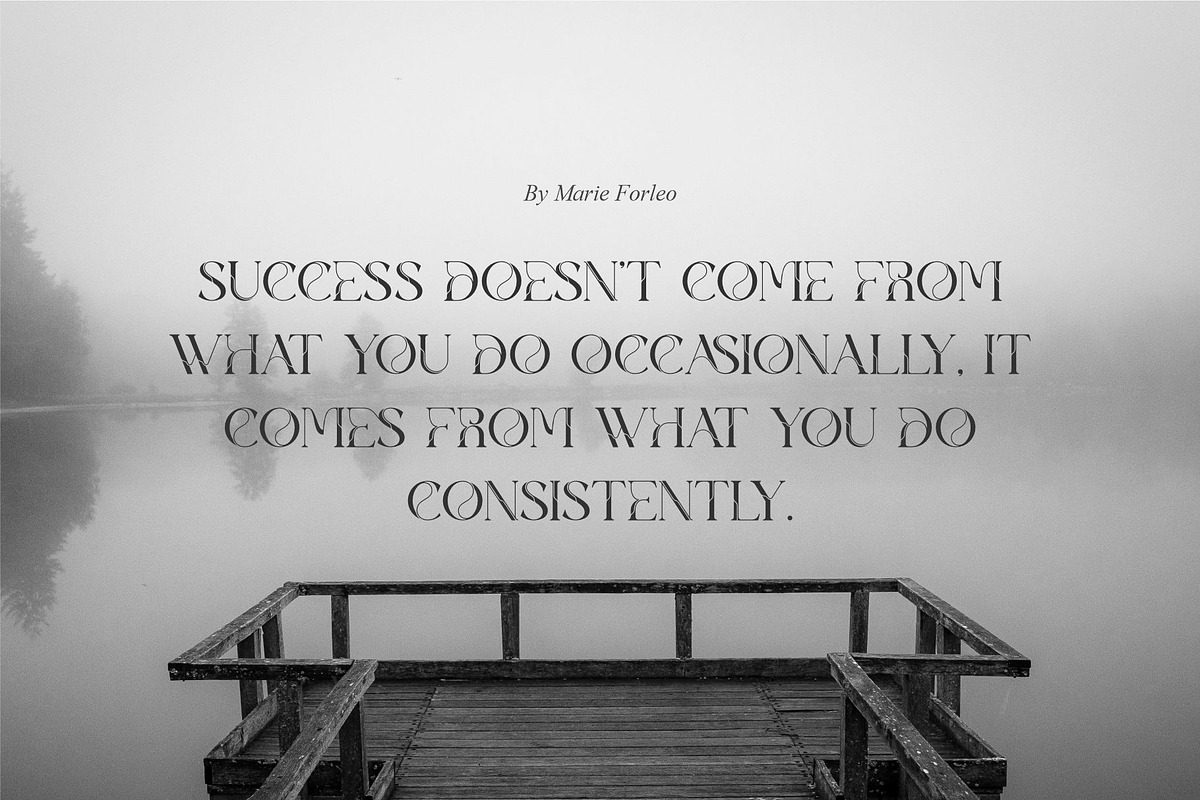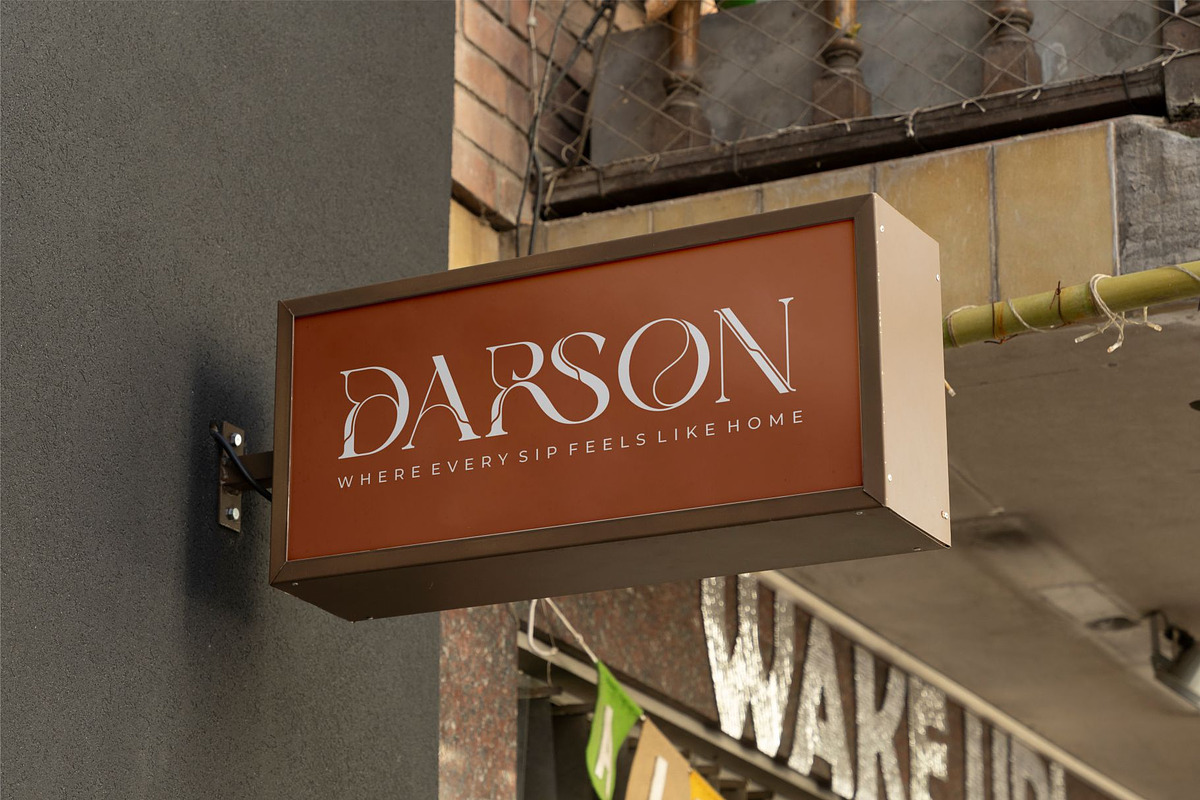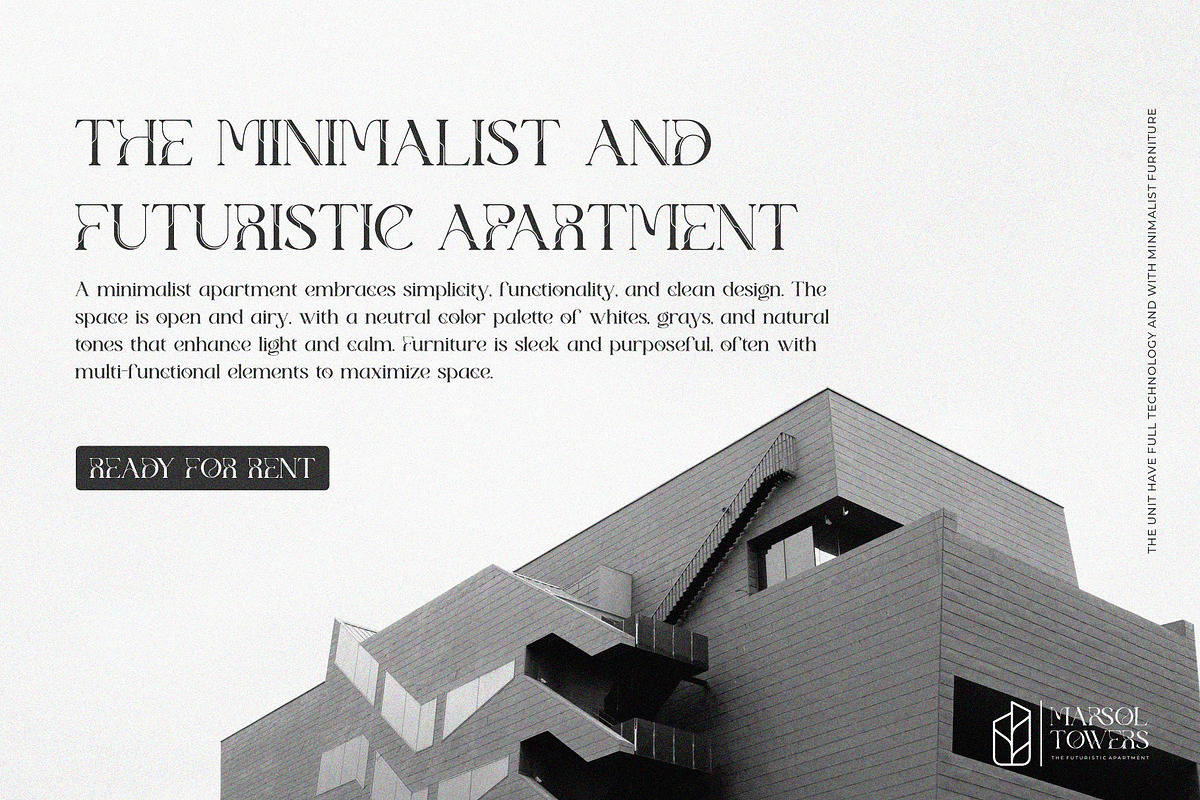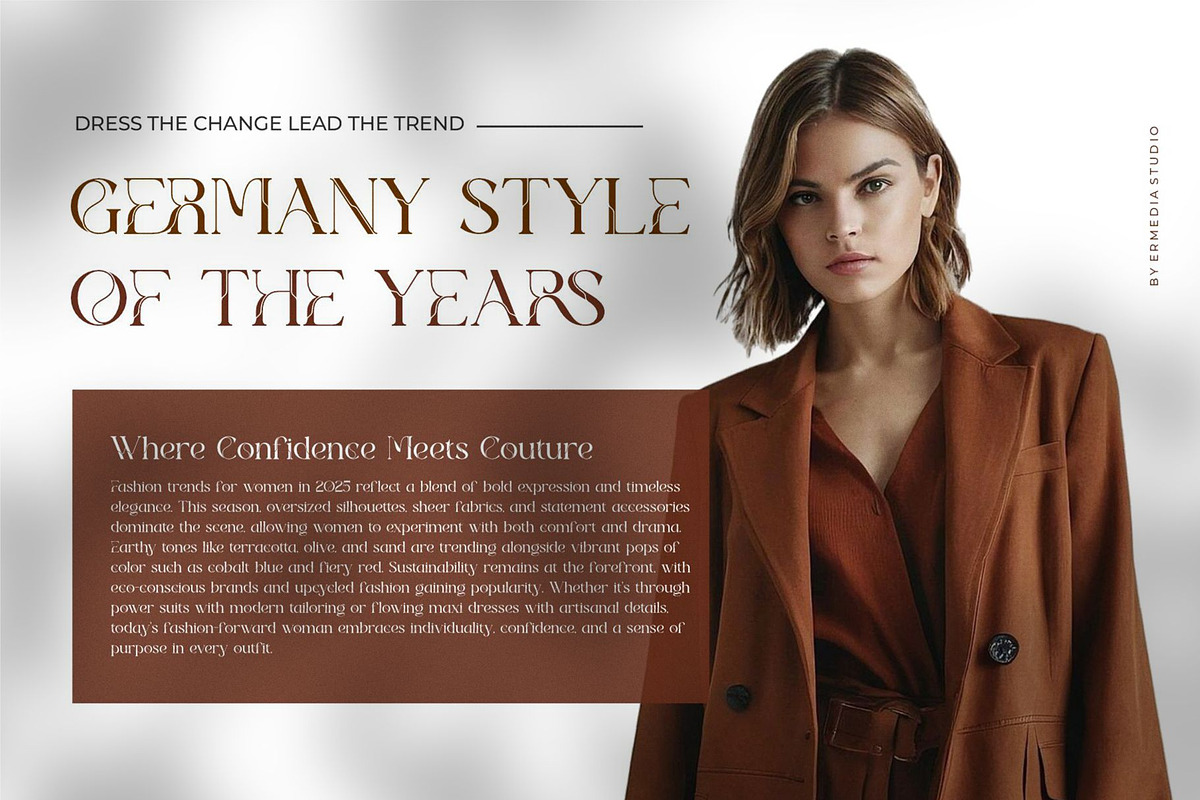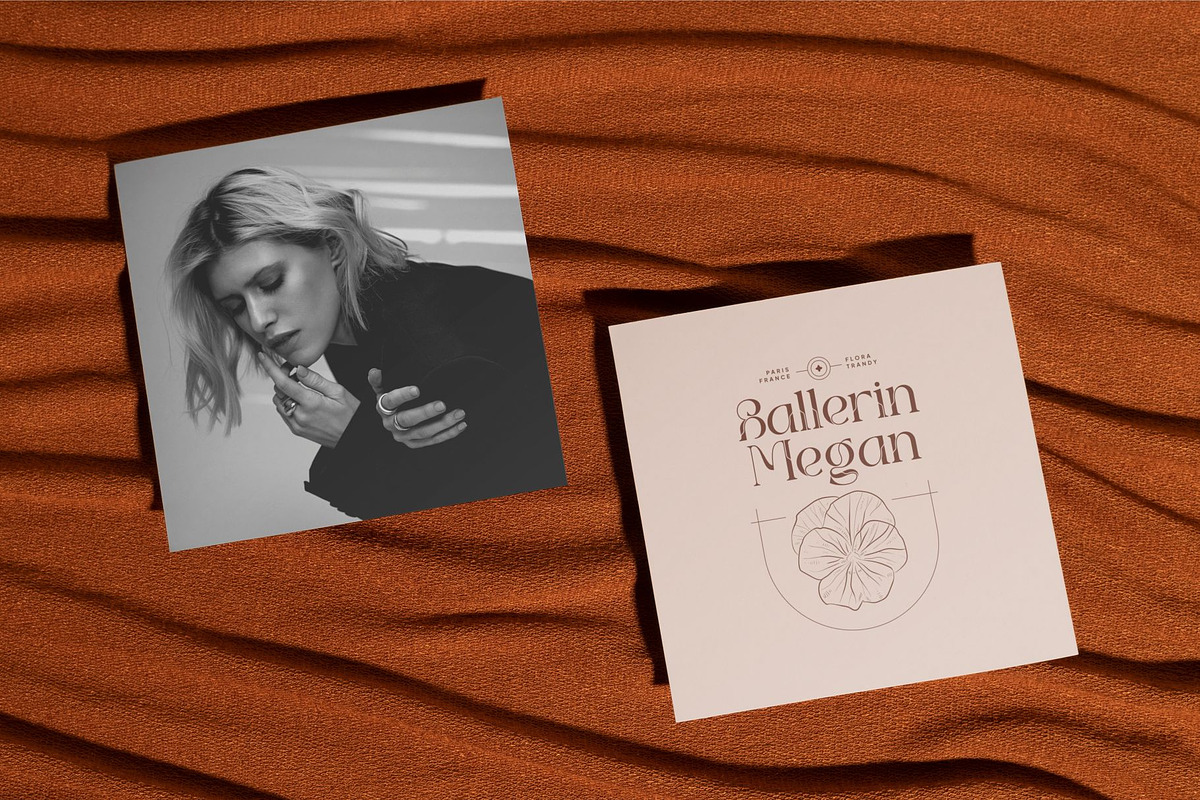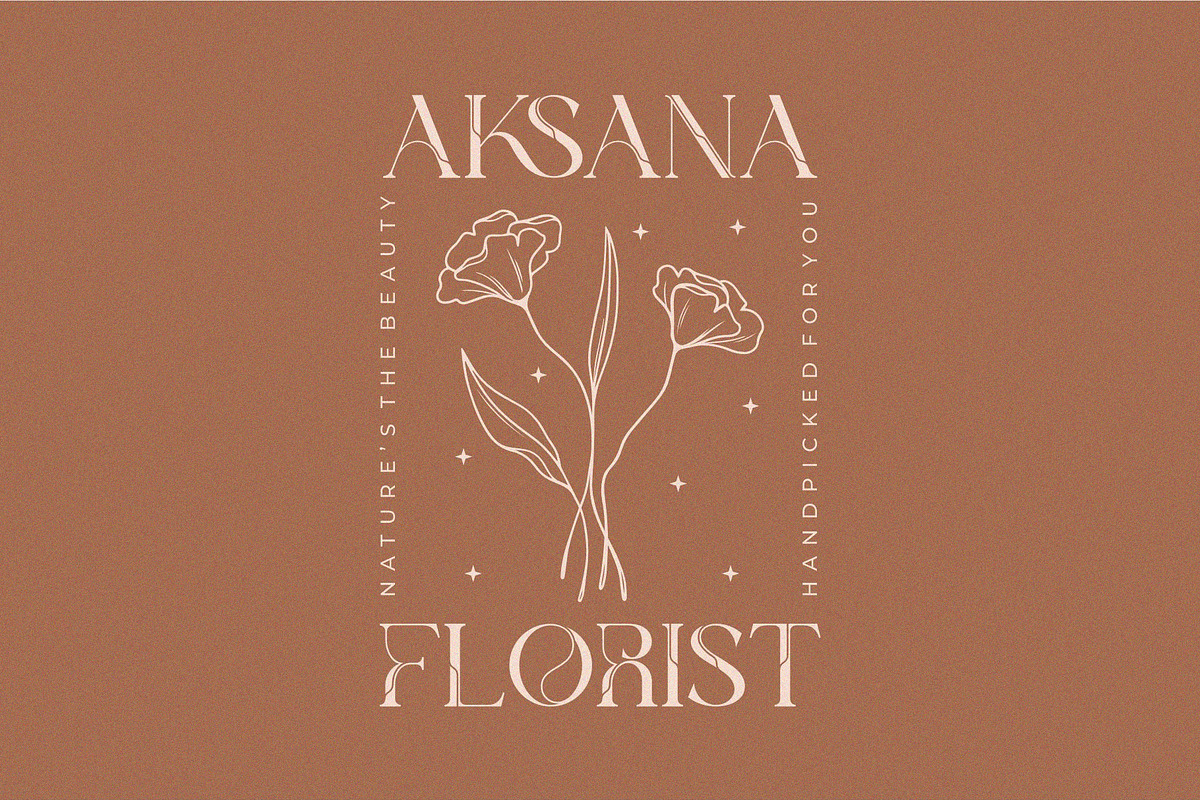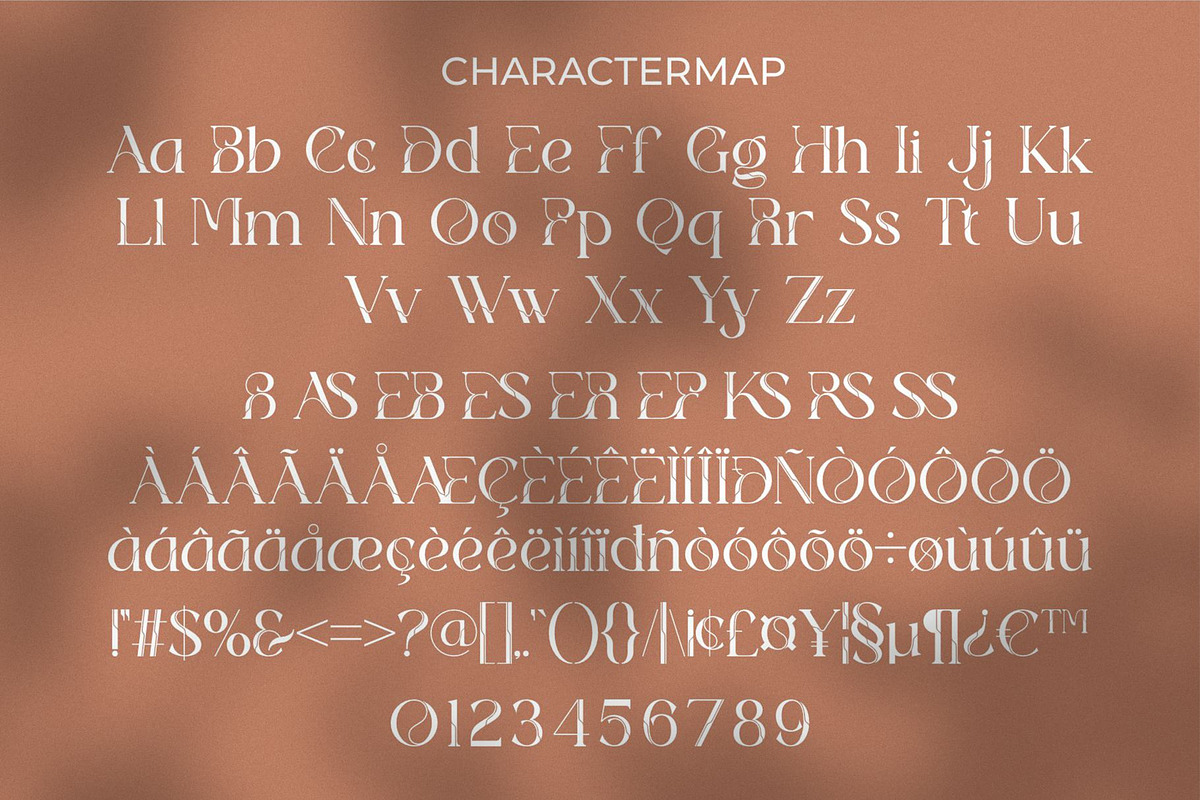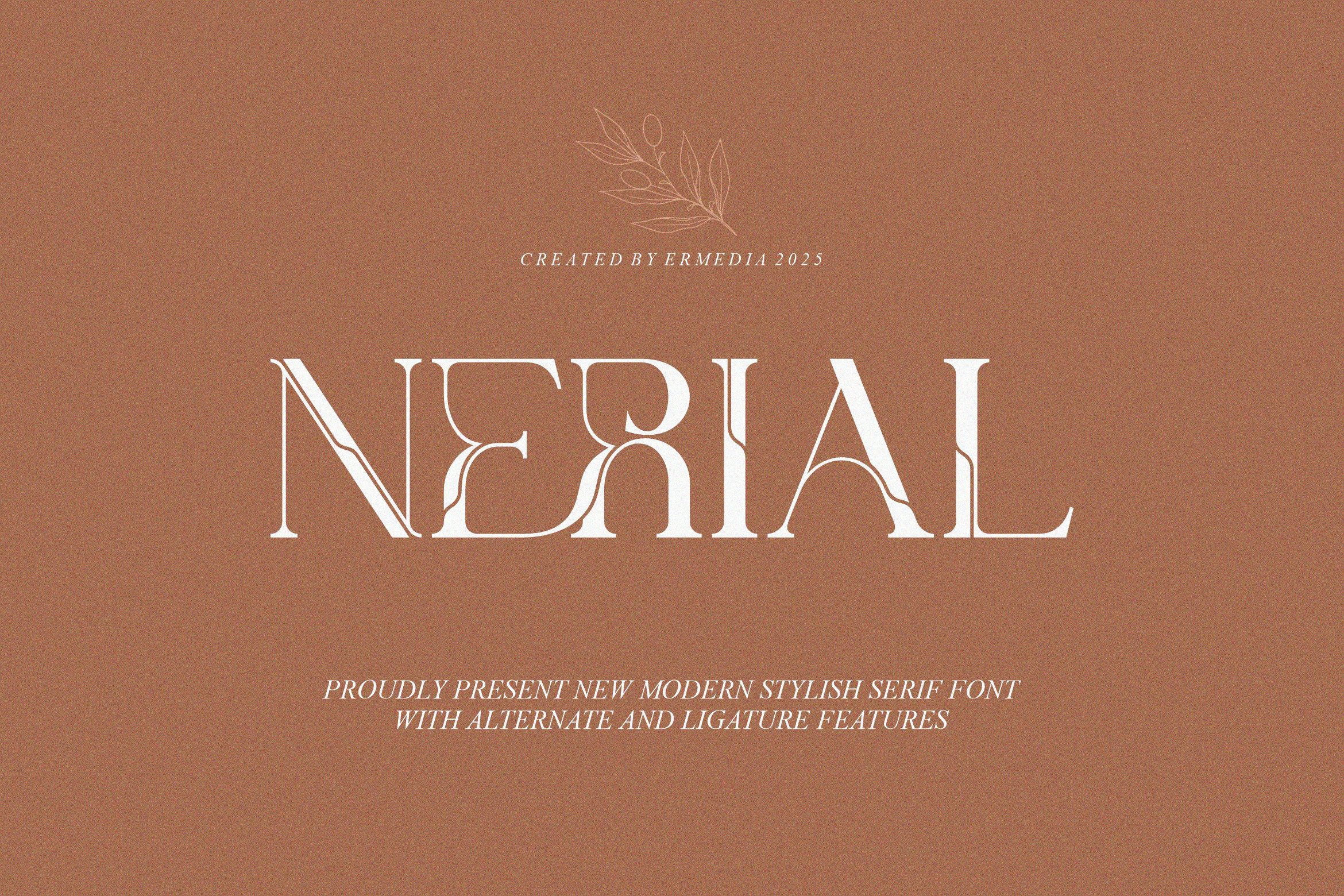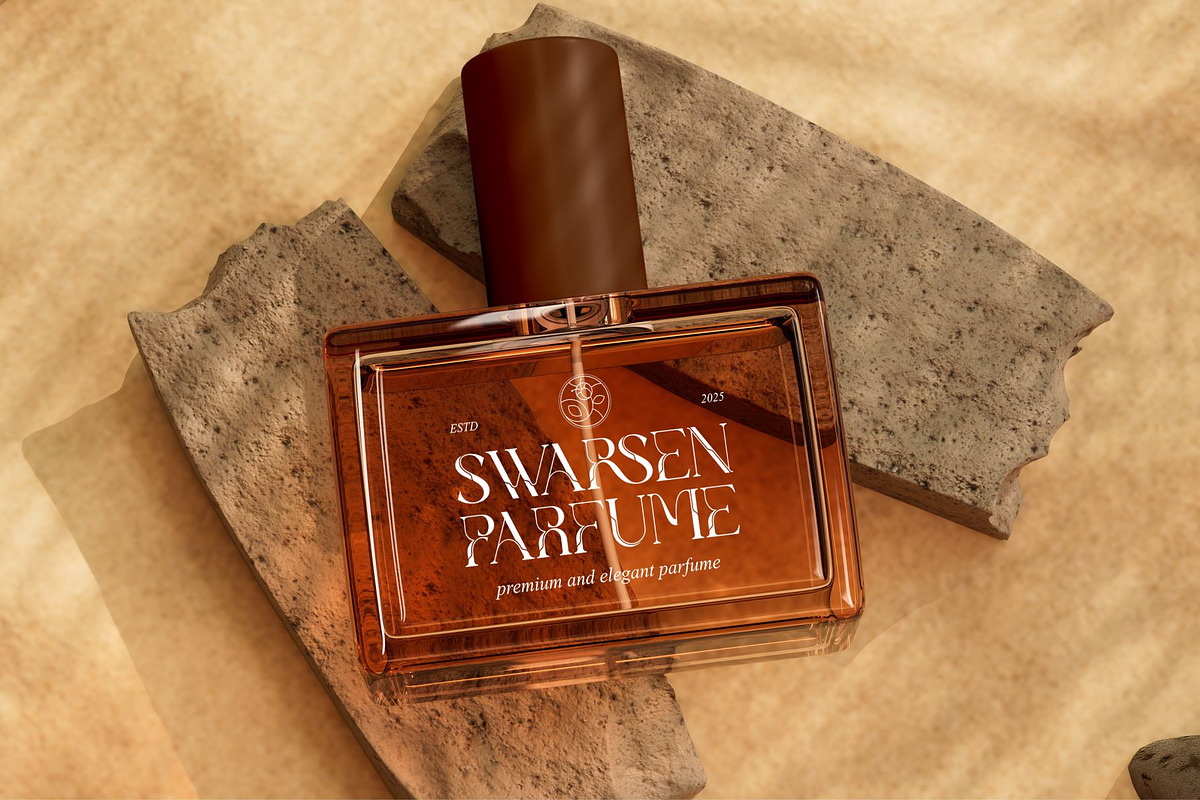
Nerial || Modern Stylish Serif Font
Thency Serif is a modern and retro font type for all branding and logo designs. This modern and retro Serif font has a beautiful character. This font is suitable for invitation card designs, cool logos, movie titles, movie names, business cards, book titles, brand names, and various other designs. Thency Serif is a smooth serif font that exudes sophistication and the moment. Its stylish ligatures make this font a perfect partner for any project.